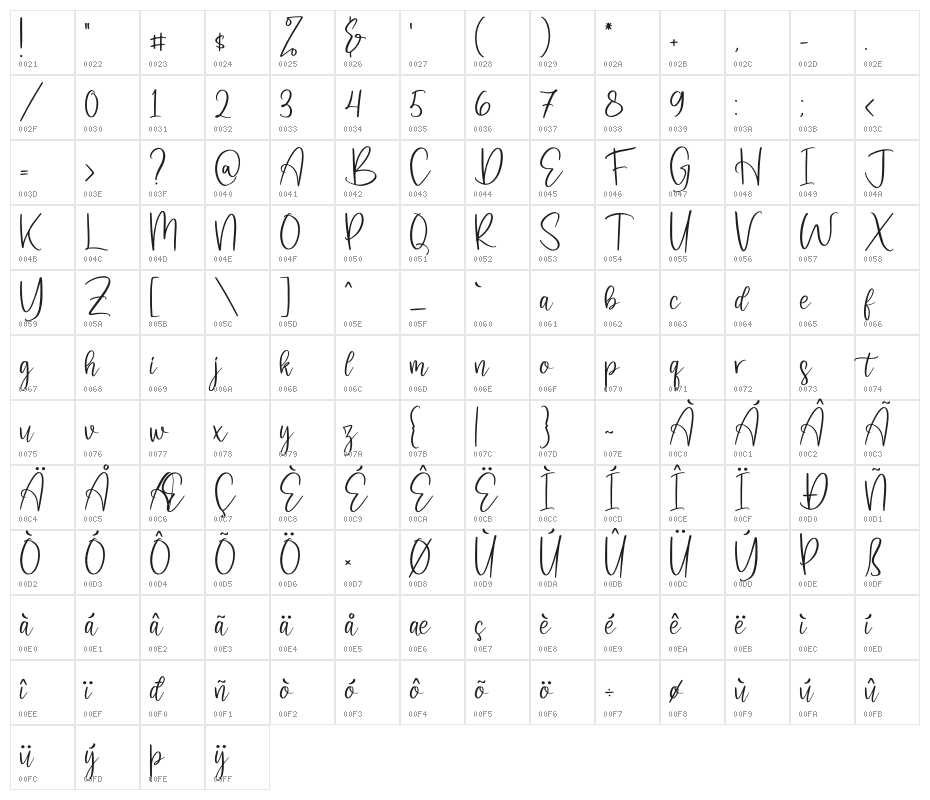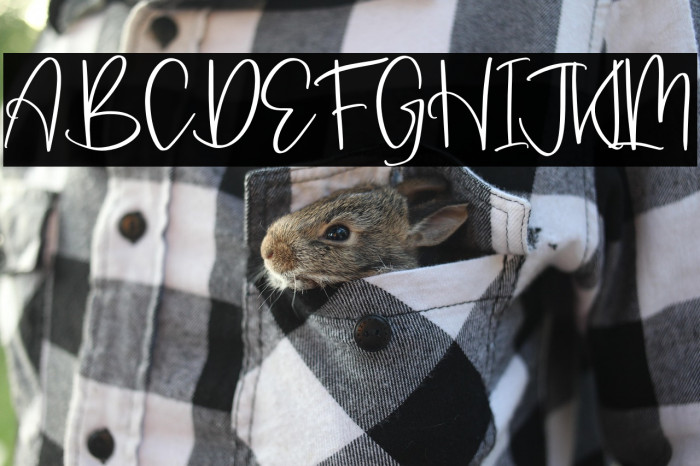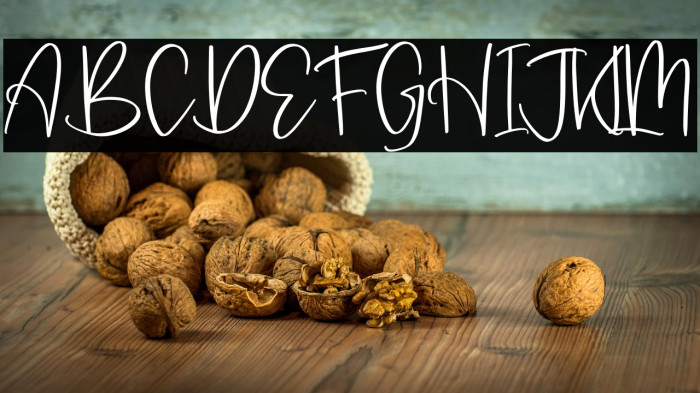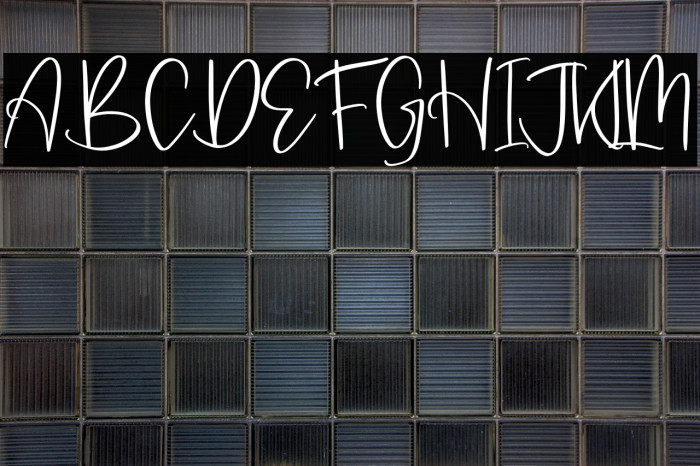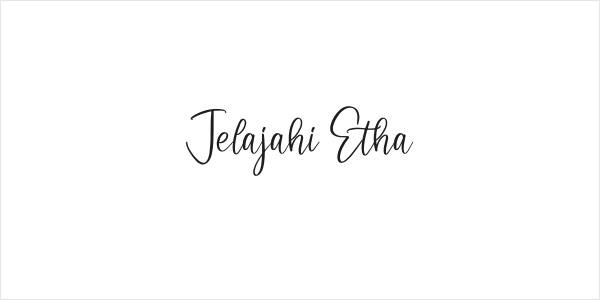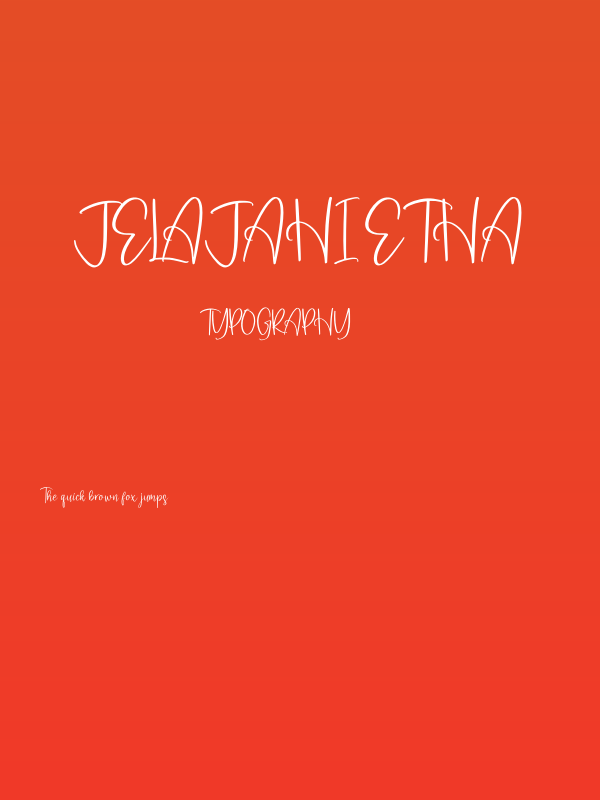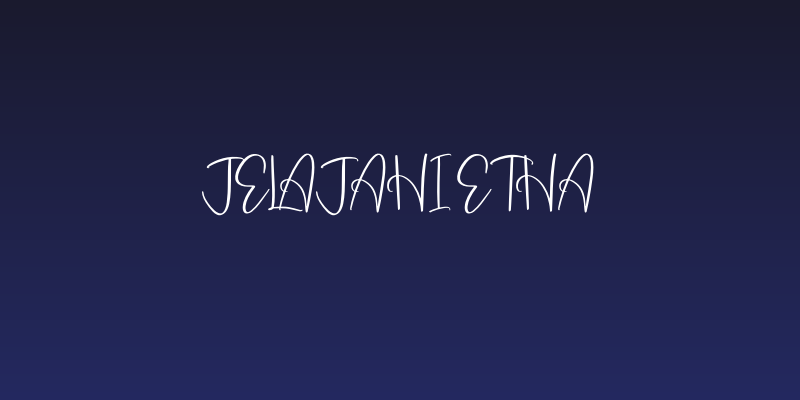
Jelajahi Etha Font
Jelajahi Etha Description
This font features a playful and energetic handwritten style, characterized by its flowing and slightly irregular letterforms. The uppercase letters are tall and slender, with a whimsical flair that adds a touch of personality. The lowercase letters maintain a consistent flow, enhancing the font's casual and approachable feel. Numbers and special characters are crafted with the same lively spirit, making them blend seamlessly with the alphabet. The overall appearance is dynamic and modern, suitable for projects that require a personal touch.
| Proposed Projects | Ideal for greeting cards, invitations, personal branding, and social media graphics. |